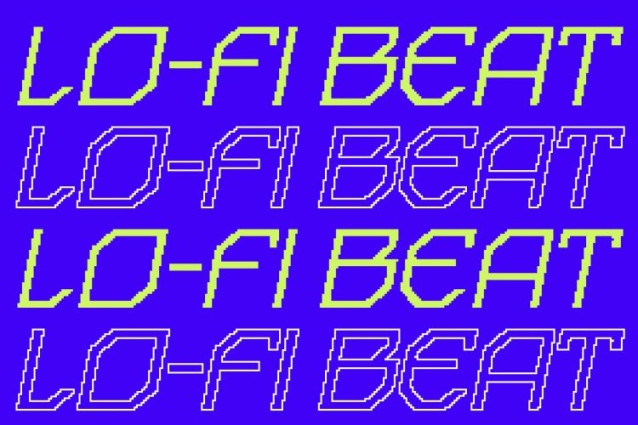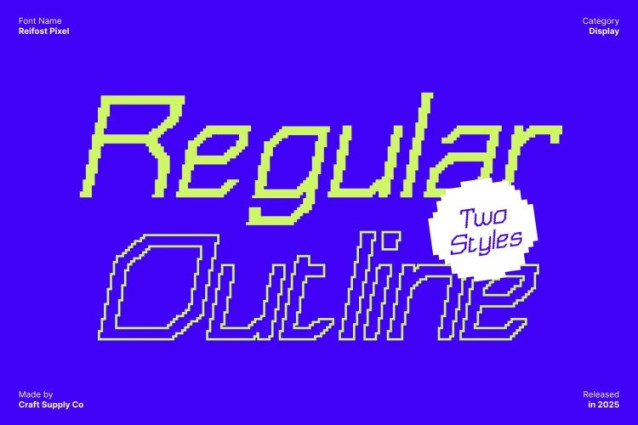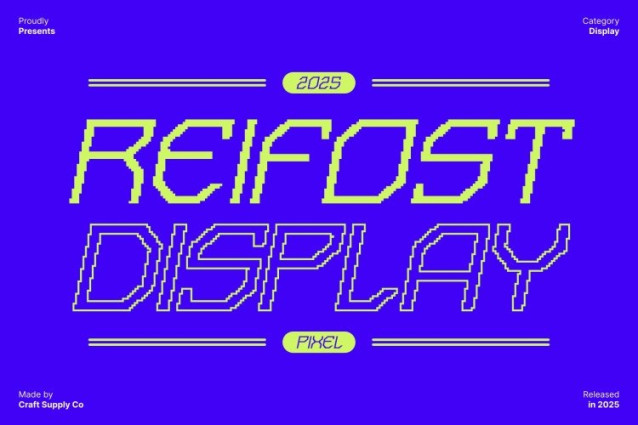
Reifost Pixel Font
Reifost Pixel Font This is a sleek and modern sci-fi pixel font designed to capture the energy of futuristic technology. Its sharp lines and clean geometric forms make it ideal for designers seeking a typeface that conveys innovation, digital sophistication, and high-tech aesthetics. Perfect for video game titles, digital design projects, and movie branding, this font brings a modern edge to every creation.
Techno Geometry for Bold, Futuristic Impact
The font’s structured, angular geometry gives it a dynamic and energetic appearance. Each letter is carefully constructed to balance readability with futuristic style, delivering a polished and visually striking impact.
Pixel Texture Enhances Digital and Sci-Fi Appeal
Enhanced with a pixel effect, this font introduces a modern digital personality that complements its techno-inspired shapes. The pixelated detailing adds depth, uniqueness, and a digital flair, making it perfect for video games, tech branding, or futuristic design projects. This fusion of precision geometry and pixel artistry ensures a high-impact, contemporary aesthetic.
Perfect for Video Game Titles, Digital Design, and Movie Branding
This font excels in applications that require energy, modernity, and futuristic style. From video game interfaces and movie posters to digital campaigns and tech branding, its combination of techno geometry and pixel-enhanced design creates a standout, high-tech presence.